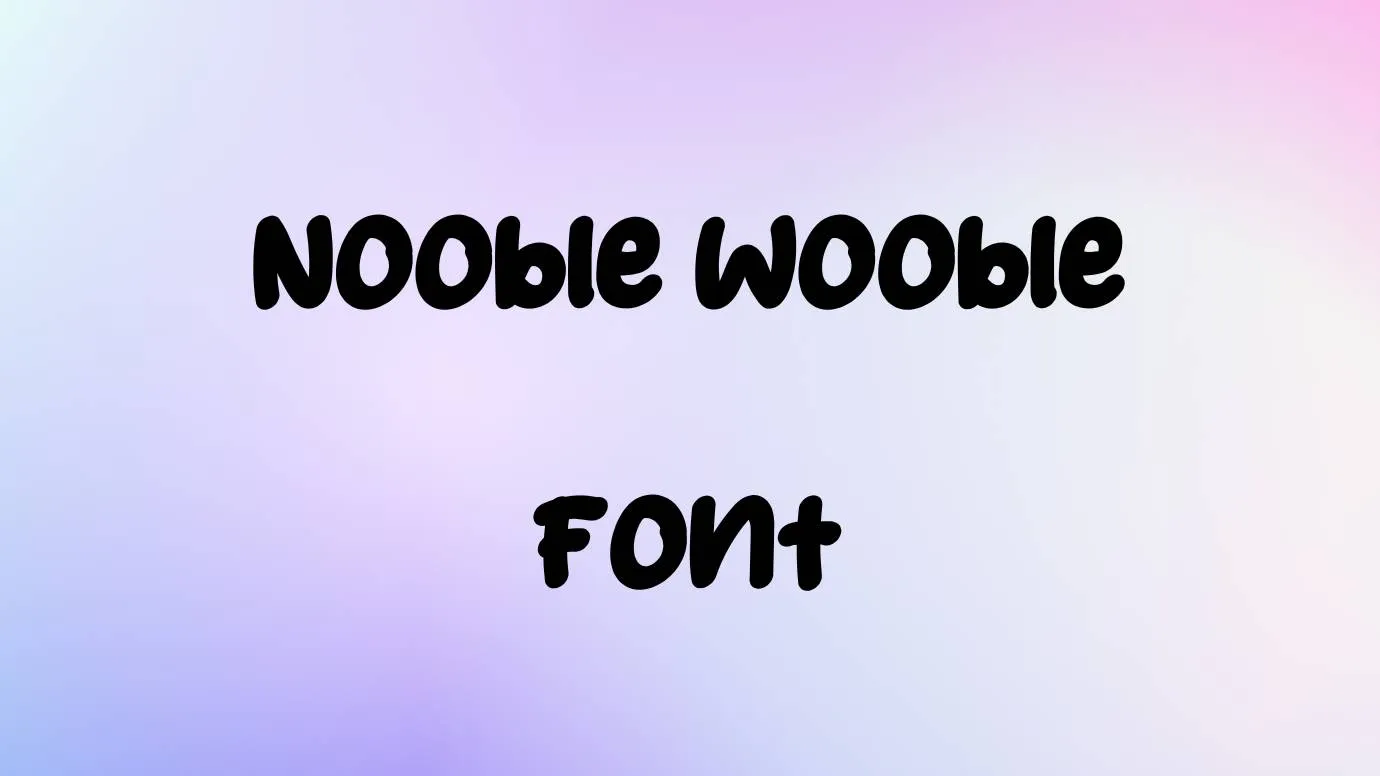
Nooble Wooble Font Family is a fancy cartoon texture. The real designer of the Nooble Wooble texture is Stefie justprince and Eifetstype is the first publisher of this texture.
The bold and eye-catching look of this font is great for fantastic cartoon design purposes. This awesome font family is perfect for making pairing with the hello kitty font that also comes in the cartoon family.
Nooble Wooble Font